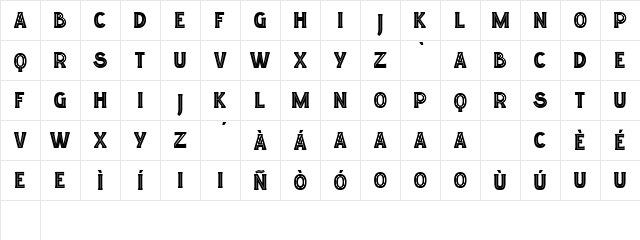
LGF ELUCIDAR TITULARES Regular
Foundry: MANUEL LAGE
Designer: Manuel Lage
Design Context for LGF ELUCIDAR TITULARES
LGF ELUCIDAR TITULARES is a composed and adaptable typeface that performs quietly and consistently across a wide range of design contexts.